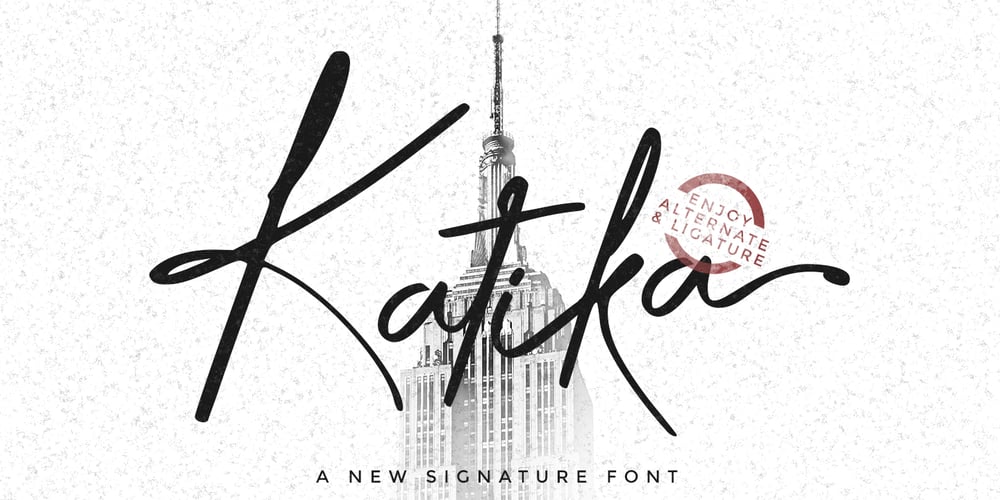
Katika Font Family was designed by Yusup Saputra and published by DYSA Studio. Katika contains 1 styles and family package options. Katika is a sweet and cursive handwritten font. This gentle font will look gorgeous on a variety of design ideas. It will add a joyful and romantic touch to each of your projects!